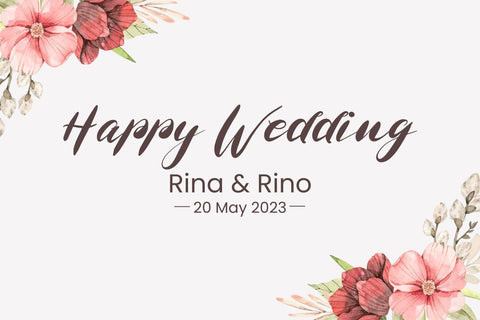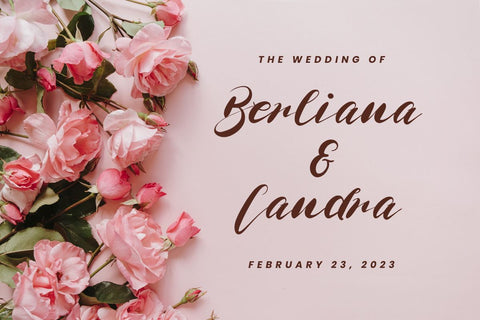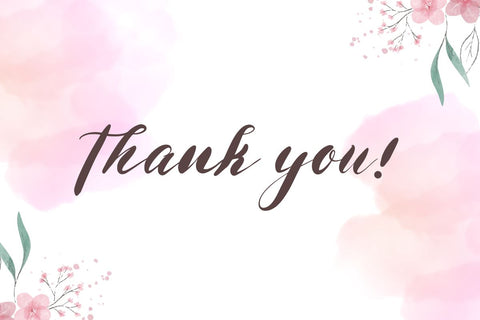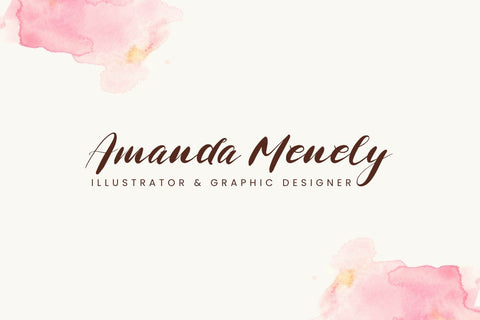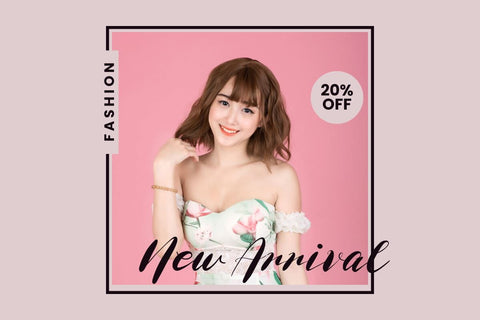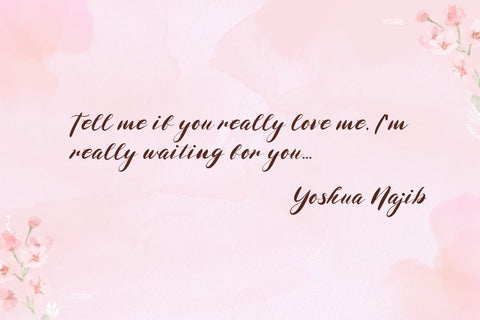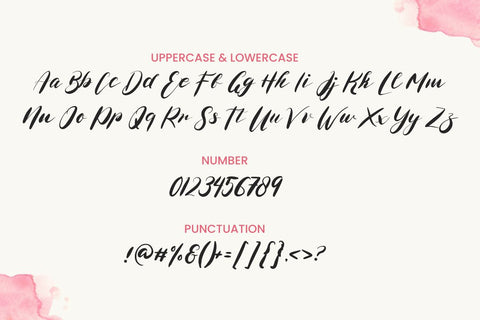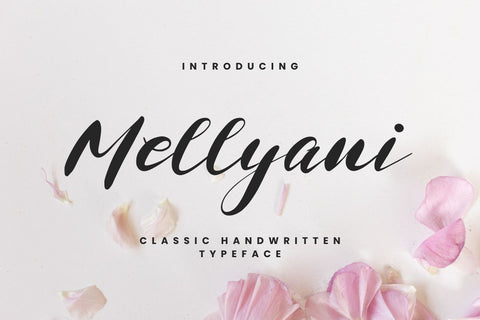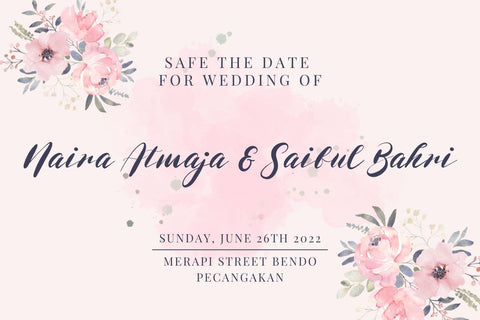
Mellyani - Classic Handwritten Typeface
Mellyani is a Handwritten font that will make your designs look unique and fun. It's perfect for labels, quotes, posters, DIY projects, branding, packaging, greeting cards, websites, photographic overlays, signs, window art, scrapbooking, tags and more!